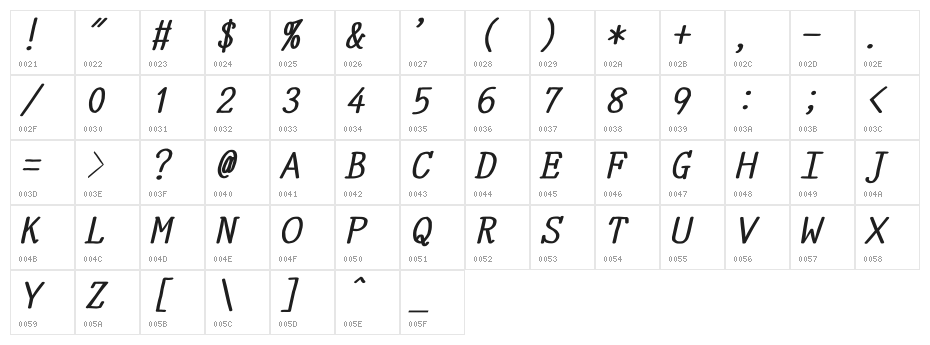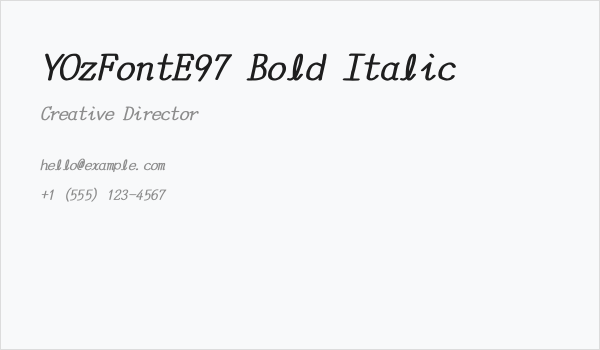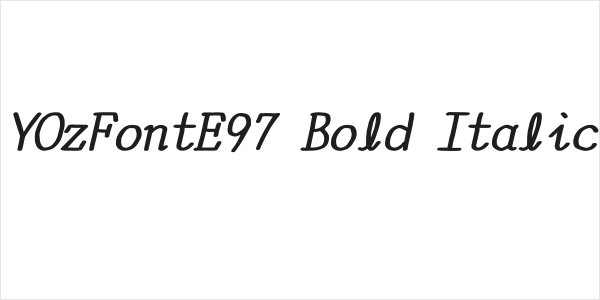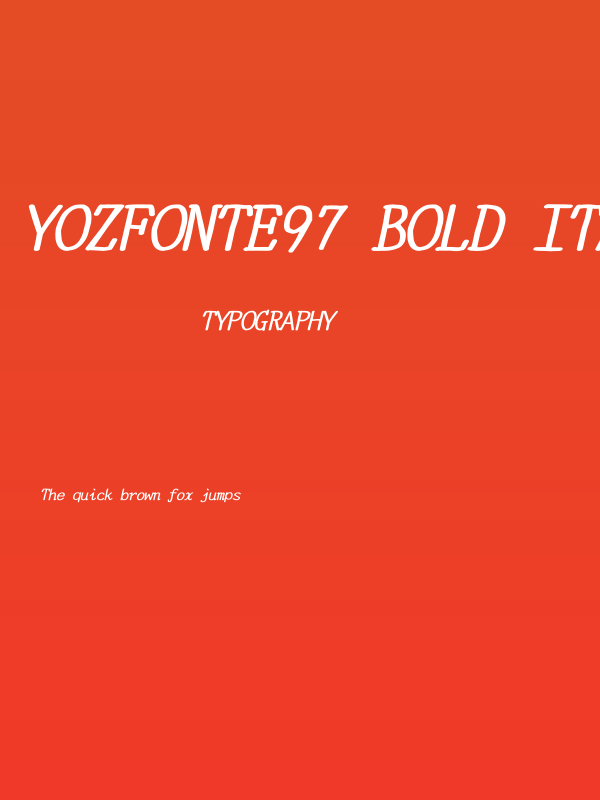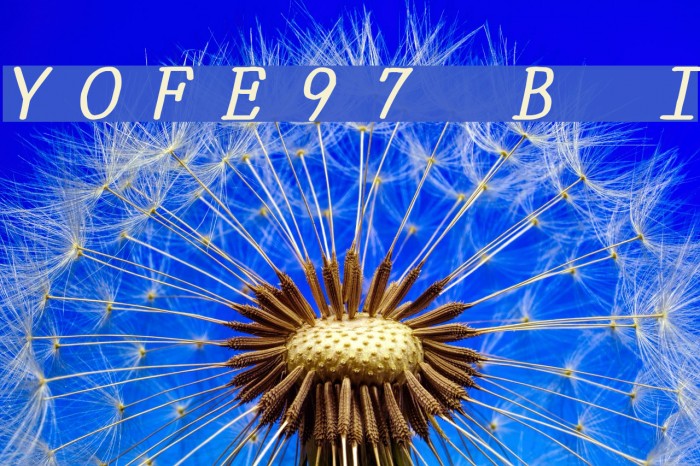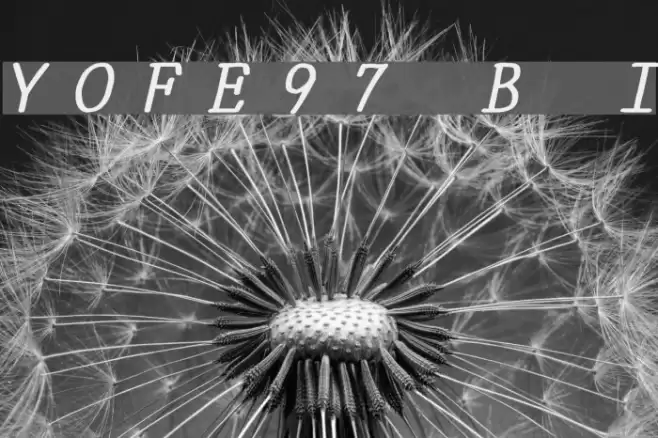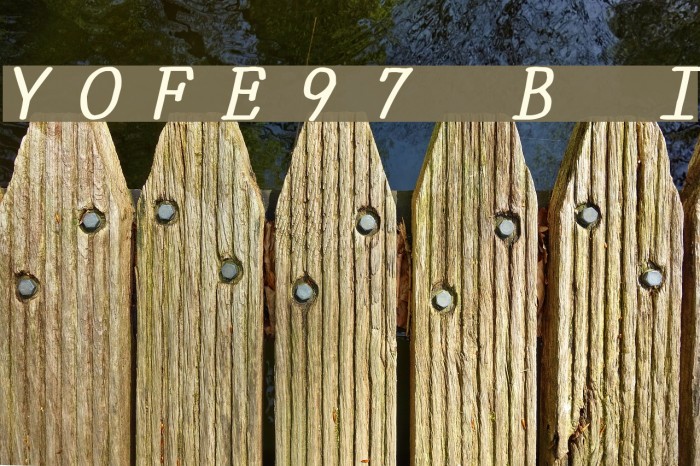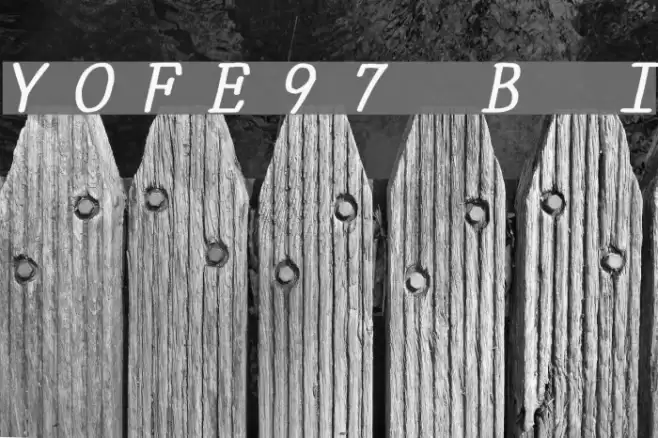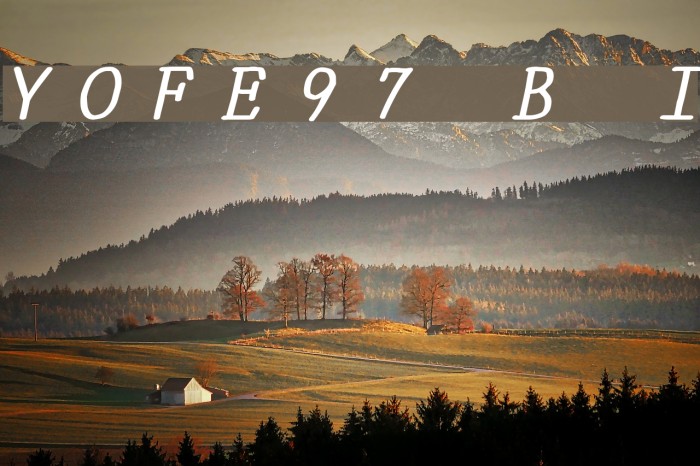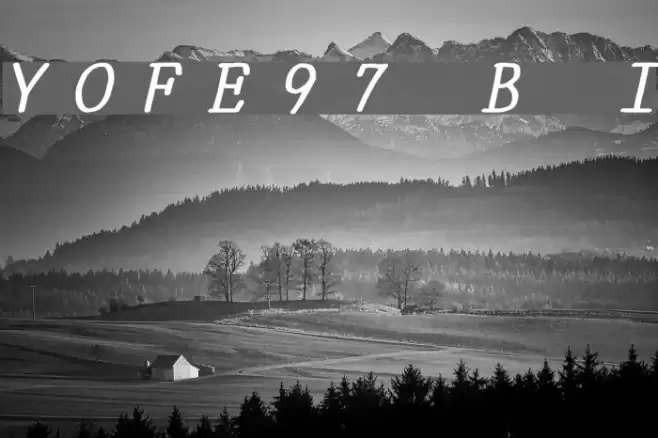
YOzFontE97 Bold Italic Font
YOzFontE97 Bold Italic Description
This font exhibits a dynamic and expressive style with a bold and italicized appearance. The characters are elegantly slanted, giving a sense of motion and fluidity. The strokes are moderately thick, providing a strong presence while maintaining readability. The uppercase letters are distinct and slightly condensed, while the lowercase letters have a more cursive and connected feel. Numbers and special characters are consistent with the overall style, ensuring uniformity across different uses. This font is suitable for projects that require a touch of sophistication and flair.